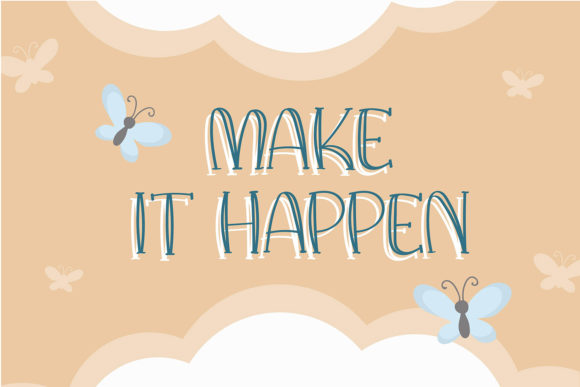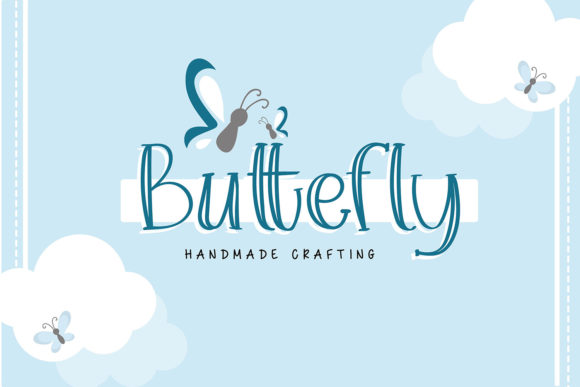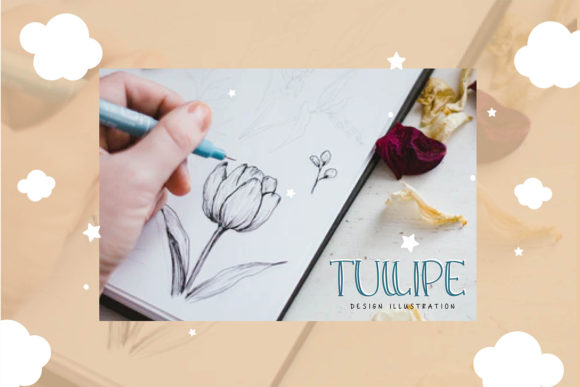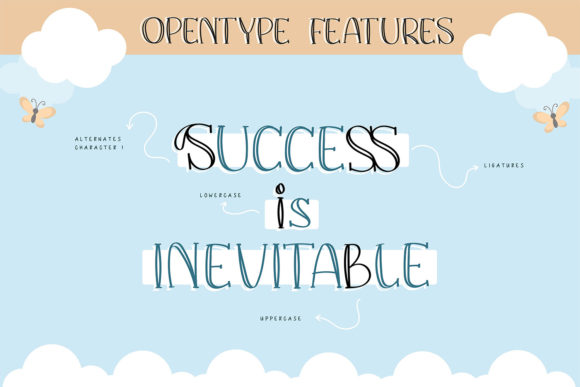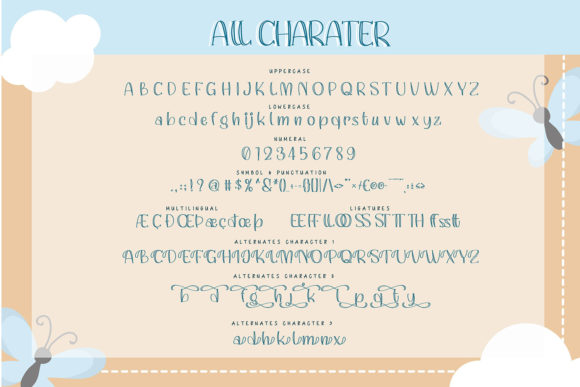
Introduction to Le Minasha Font
As you sit at your desk, staring at a blank page, the creative wheels start turning. You envision a whimsical design, one that transports viewers to a world of fantasy and magic. And then, it hits you – the perfect font to bring your vision to life. For designers, finding the right font can be the difference between a mediocre and a mesmerizing project. That’s where Le Minasha Font comes in.
With its luxurious and high-quality design, Le Minasha Font is the perfect addition to any creative project. This beautiful display font boasts a transparent background, making it a valuable resource for designers looking to add a touch of elegance to their work. And with its PUA encoding, accessing all of the glyphs and swashes is a breeze.
Key Features of Le Minasha Font
• High-quality design resource ideal for creative projects, offering a unique and stylish aesthetic.
• Features a clear and readable font style, suitable for a wide range of creative projects, from digital art to print media.
Honest Review: Le Minasha Font
I recently had the chance to experiment with the Le Minasha Font, and I must say it’s a fantastic addition to any designer’s toolkit. This font is perfect for creating unique and eye-catching designs for your next creative project.
• High-quality design: The Le Minasha Font boasts a stunning and elegant design that’s perfect for both digital and print media.
• Transparent background: This font features a transparent background, making it easy to use as a design resource in various applications.
• ⚠️ Limited font styles: The Le Minasha Font only comes in a few styles, which may limit its versatility for some designers.
• ⚠️ Not ideal for complex text: Due to its elegant design, the Le Minasha Font may not be the best choice for complex or large blocks of text.
Overall, I’m thoroughly impressed with the Le Minasha Font. It’s a high-quality design resource that’s perfect for adding a touch of elegance to your next creative project. With its transparent background and free download, it’s an excellent choice for designers looking to spice up their designs without breaking the bank.
Le Minasha Font is a high-quality design resource ideal for creative projects. Its transparent background makes it perfect for use in various design applications.
Tips for Getting the Most Out of Le Minasha Font
To get the most out of Le Minasha Font, use it in combination with other high-quality design resources, experiment with different font sizes and styles, and pay attention to the transparent background to ensure seamless integration with your design.
Le Minasha Font is commonly used in creative projects, such as:
• Graphic design
• UI/UX design
• Print design
• Web design